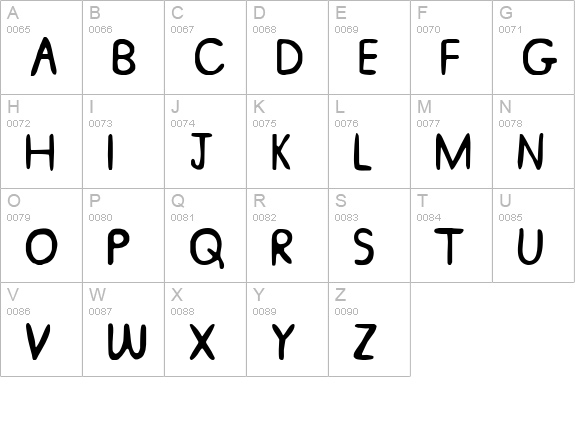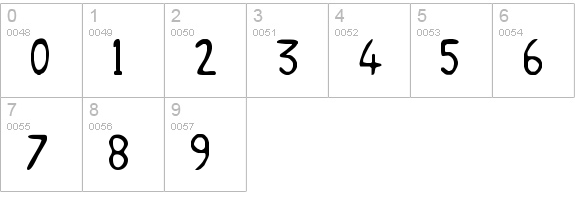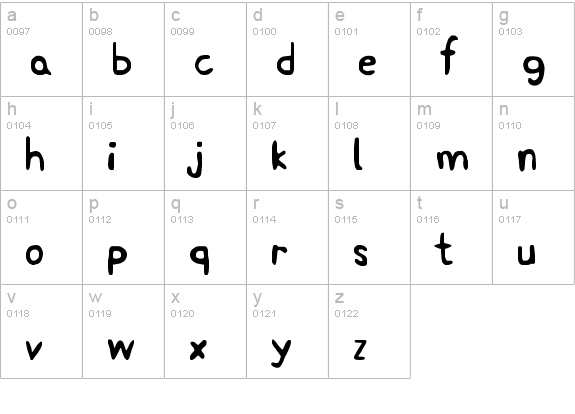
Peppa Pig Medium is a balanced, medium-weight variant in the Peppa typeface family \xE2\x80\x94 well suited to sub-headlines, navigation, and balanced editorial work.
Peppa Pig Medium is a free for personal use font in the Script > Handwritten category, designed by Samplefont22. It has been downloaded 48 times and is available for Windows, Mac and Linux.
The Peppa Pig Medium font is a delightful and charming typeface inspired by the popular children's animated television series. With its friendly and playful appearance, this medium-weight font is perfect for adding a touch of fun and whimsy to any design project. Whether you're creating invitations, posters, or social media graphics, Peppa Pig Medium will bring a cheerful and lighthearted vibe to your work.